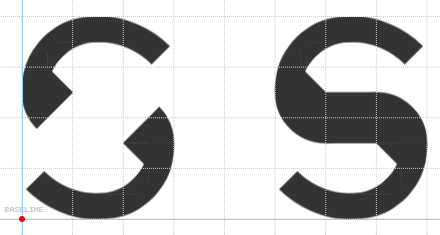
Interestingly enough, several of the bricks I was working with seem to have lost their ability to be flipped. This seems to work even in a clone, so you can try it out for yourself. The first 5 bricks in the palette (the half-blocks, quarter-blocks, and half-arc) can no longer be flipped for me, although flipping did work at first since I have flipped copies of the half-arc in the font.
Also note that the nudged position of these bricks can still be flipped; it's just that the shape itself doesn't change orientation. Rotating these bricks still works fine.
Yep, I just redraw the misfits at the moment :D
Ideas for numerals
Very interesting use of half-arcs. For me, it comes across as a sharp & modern revitalization of something like FF Din. As for the /s, I think your solution is actually quite elegant for the small size used, and I personally can't think of a more elegant solution. However, I haven't tried yet, so I will do that and if I find anything, I'll report back
Whoops! Meant FF Dax.
Did not find a particularly elegant solution, but I found a near-perfect 1.5 brick curve in 2x2 filters
Do the uppercase letters, not lowercase letters with Uppercase!
MAGINIQUE
i wouldn't change the S if i were you
yeah a script "S/s" is fine
@digi2 true